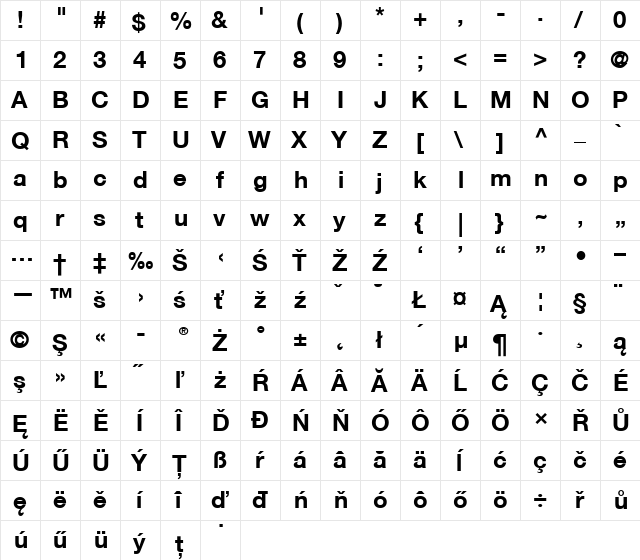
Helvetica CE 55 Roman Bold
Design Context for Helvetica CE 55 Roman Typeface
Helvetica CE 55 Roman offers clean, dependable letterforms without strong stylistic allegiance, making it a practical choice for designers who need flexibility. Its bold stroke weight gives it real presence on the page.